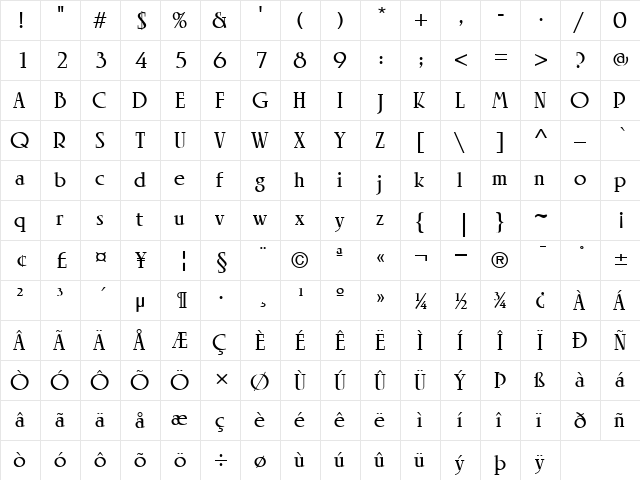
LTRowena Light Bold
Design Context for LTRowena Light Typeface
LTRowena Light takes a measured approach to typography — its balanced proportions and neutral character make it a reliable workhorse for both digital and print work. The heavy weight commands attention and anchors typographic hierarchies.